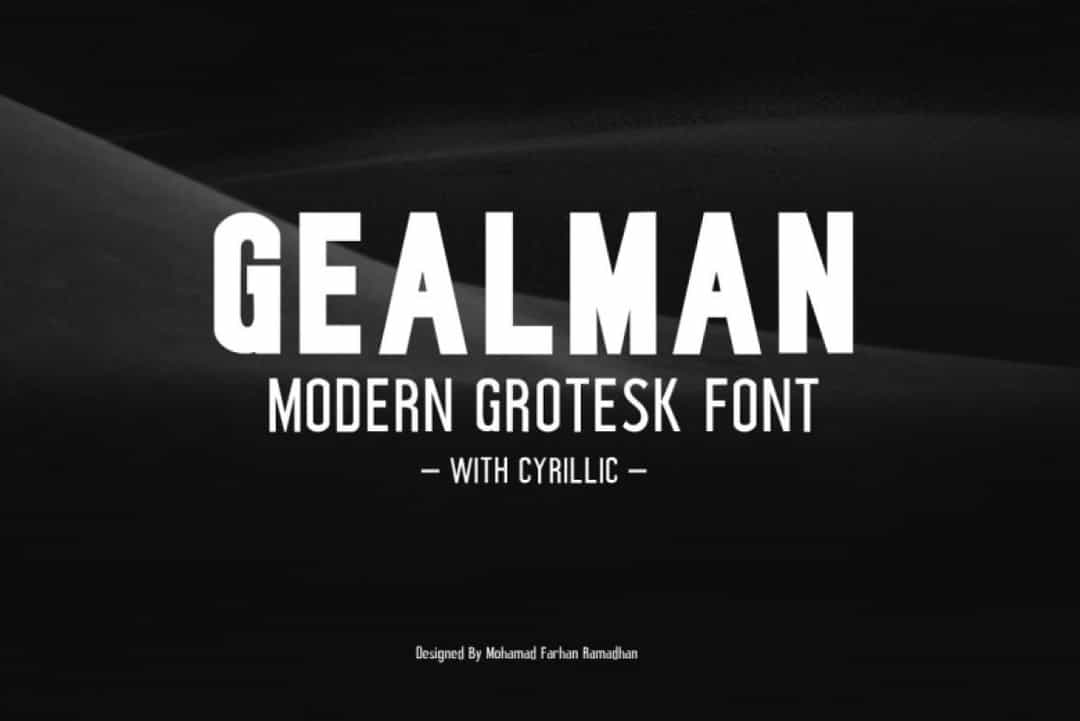
Gealman stands out as an exceptional Grotesk font due to its cleanliness, simplicity and durability. This font offers a modern aesthetic with its simplicity yet durability, adding contemporary style and a sense of class to any design task. Gealman can be used across marketing materials, posters headlines logotypes headlines as well as headlines. Furthermore it works beautifully alongside stylized script fonts such as blackletter.